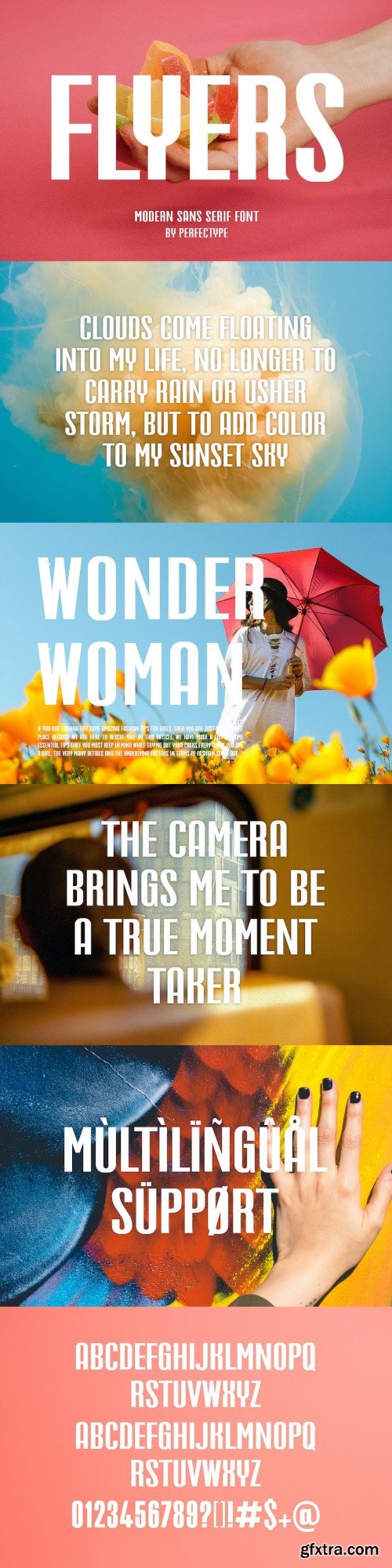
flyers 现代无衬线字体 字体
inspired by the famous minimalist logo perfect for the purposes of designing templates, brochures, videos, advertising branding, logos, invitation, layout design, elegant crafting, beauty design and other
- International Accent